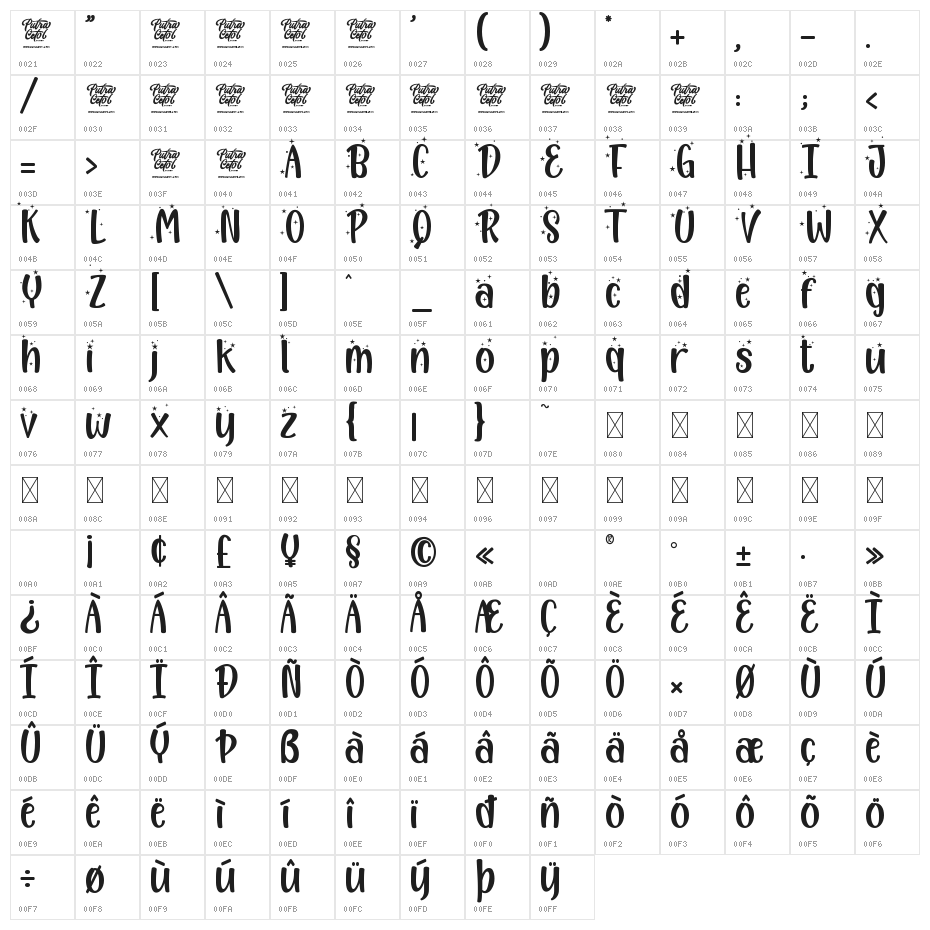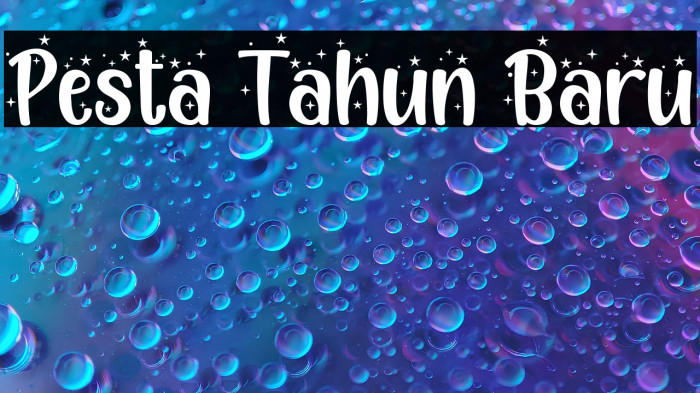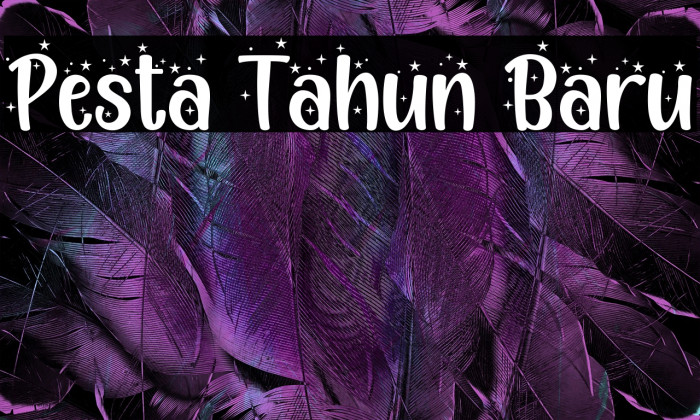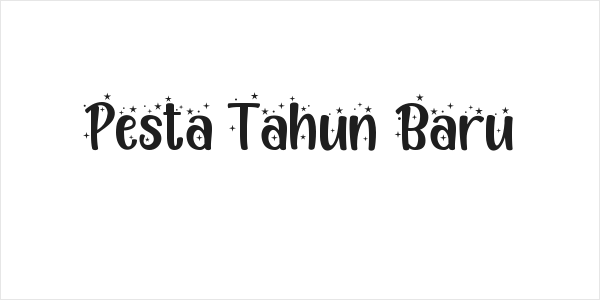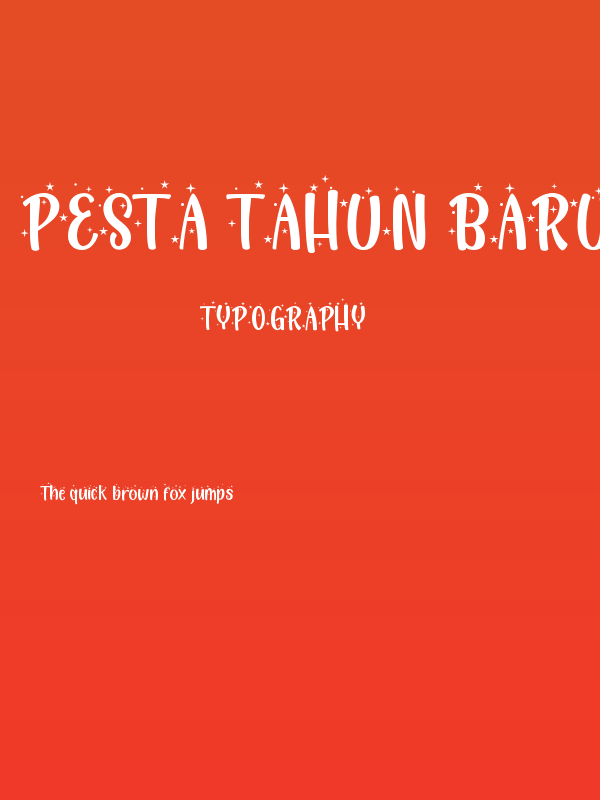
Pesta Tahun Baru Font
Pesta Tahun Baru Description
This playful and whimsical font features a lively design with star embellishments scattered around each character, giving it a festive and celebratory feel. The letters are bold and rounded, with a slightly irregular baseline that adds to its charm and hand-drawn appearance. The uppercase and lowercase letters maintain a consistent style, with smooth curves and a friendly demeanor. The numbers and special characters are equally engaging, making this font suitable for creative and fun projects.
Use CaseHeadlines, Logos, Invitations
Proposed ProjectsIdeal for party invitations, festive banners, children's book covers, and playful branding.